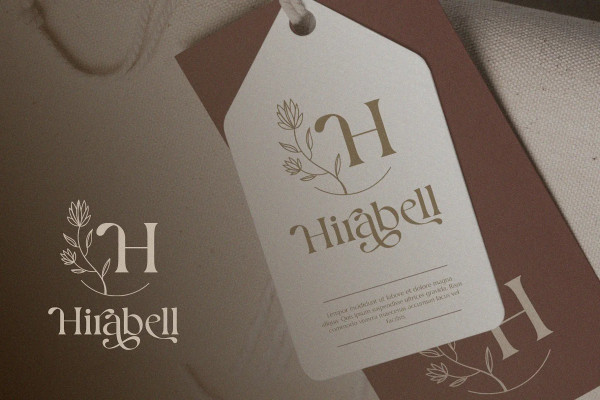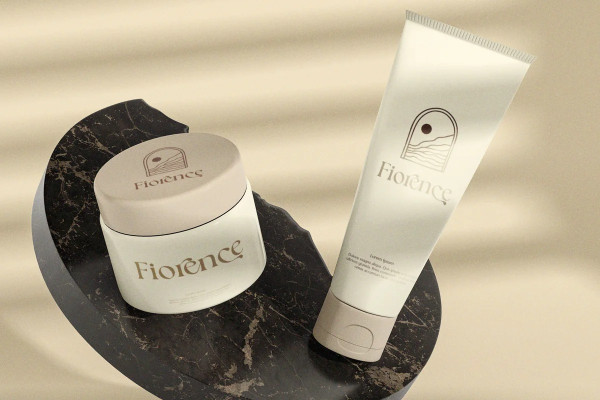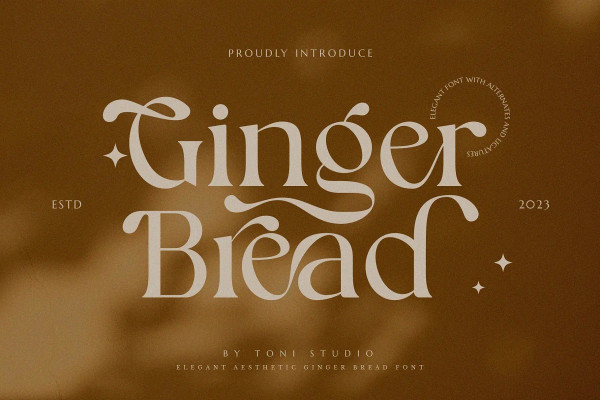
Ginger Bread Font
Ginger Bread Font, a beautiful font with a serif design that can be used in a variety of ways. Its elegant curves and modern look will make your design stand out while maintaining a classic and timeless feel. discover a series of fun alternative characters to incorporate harmonious designs into your creations. goes great with nostalgic mood boards and vintage logos. It comes with lowercase and uppercase letters plus numbers, punctuation & unique multilingual letters.